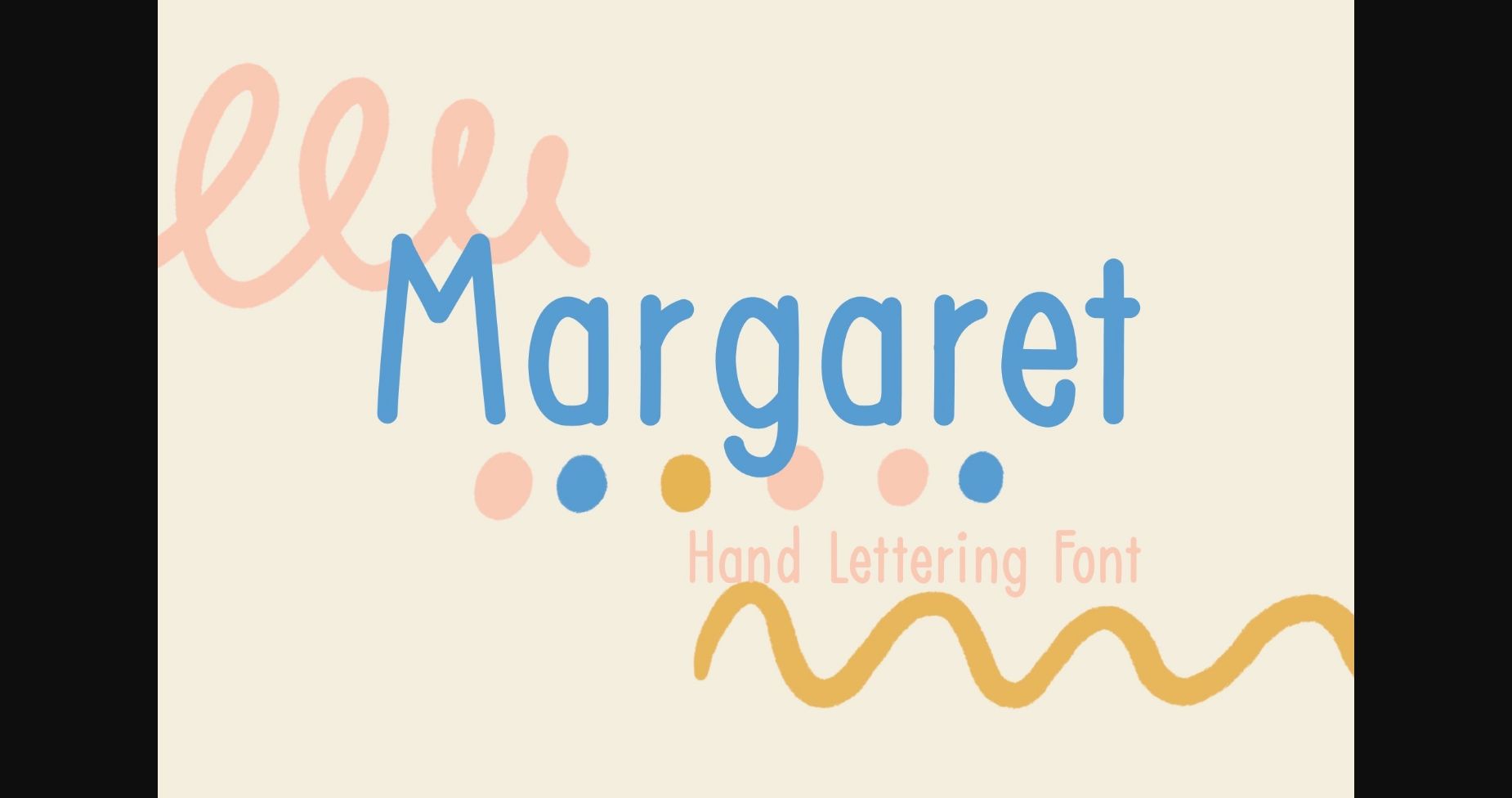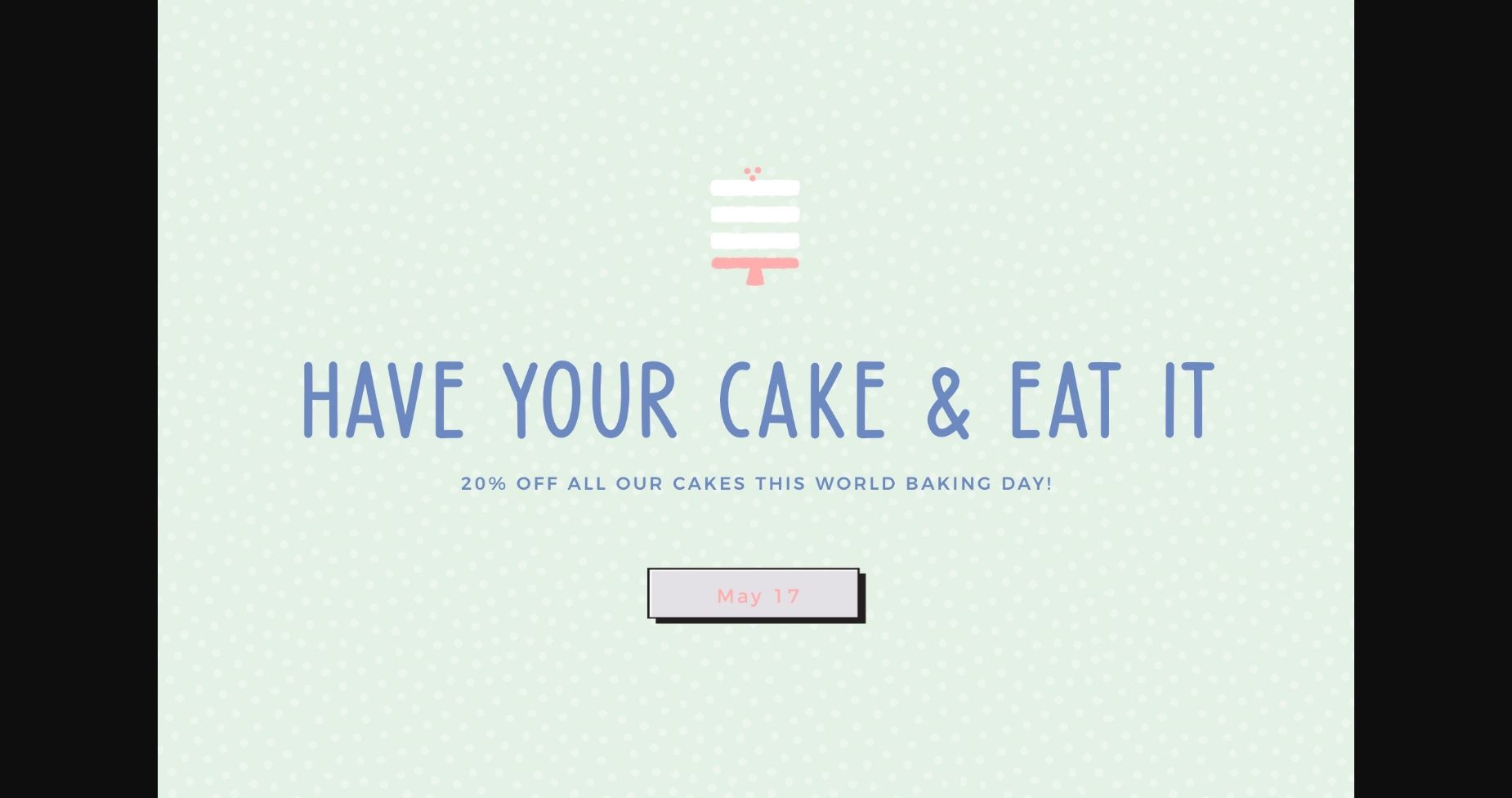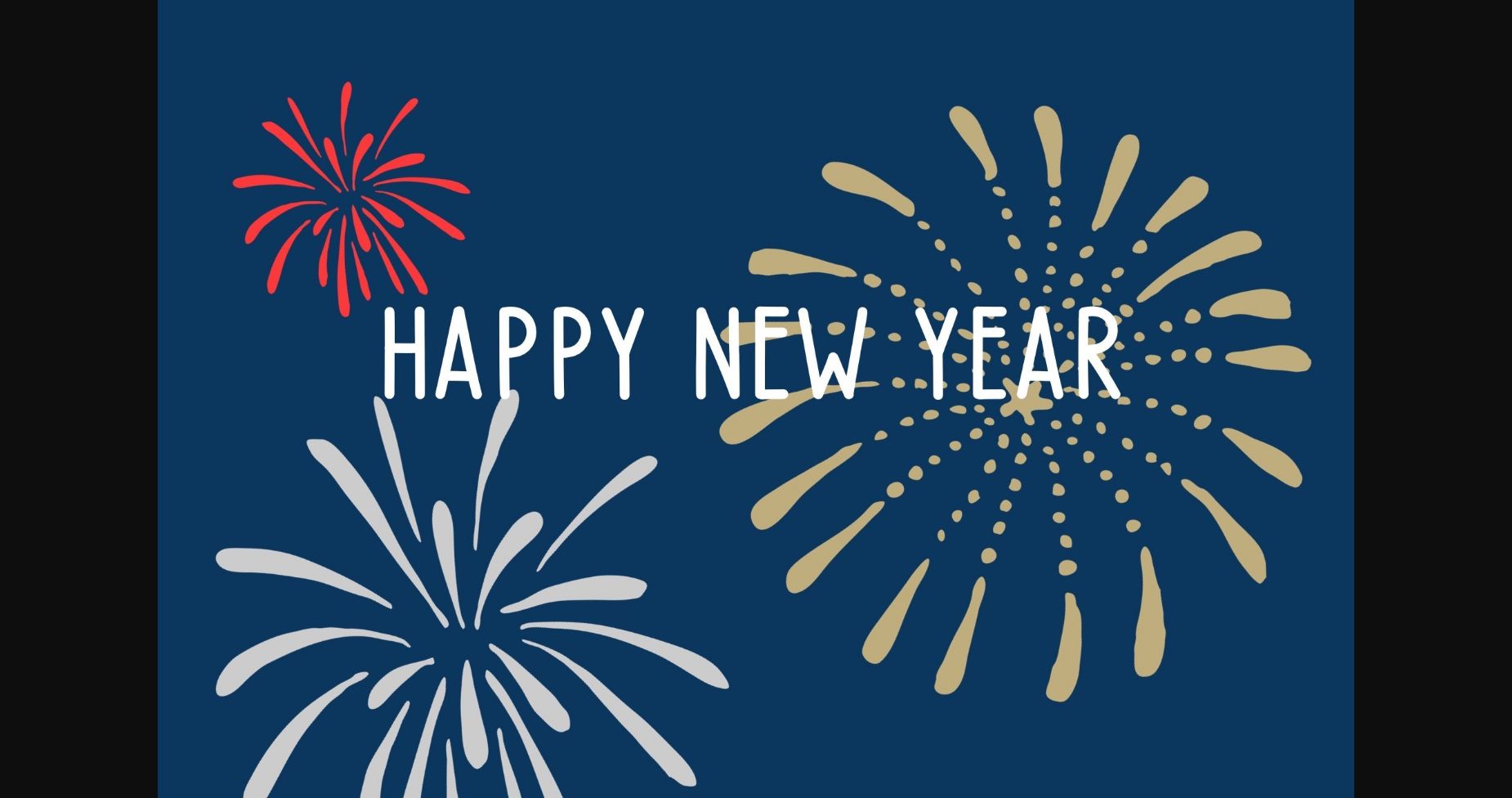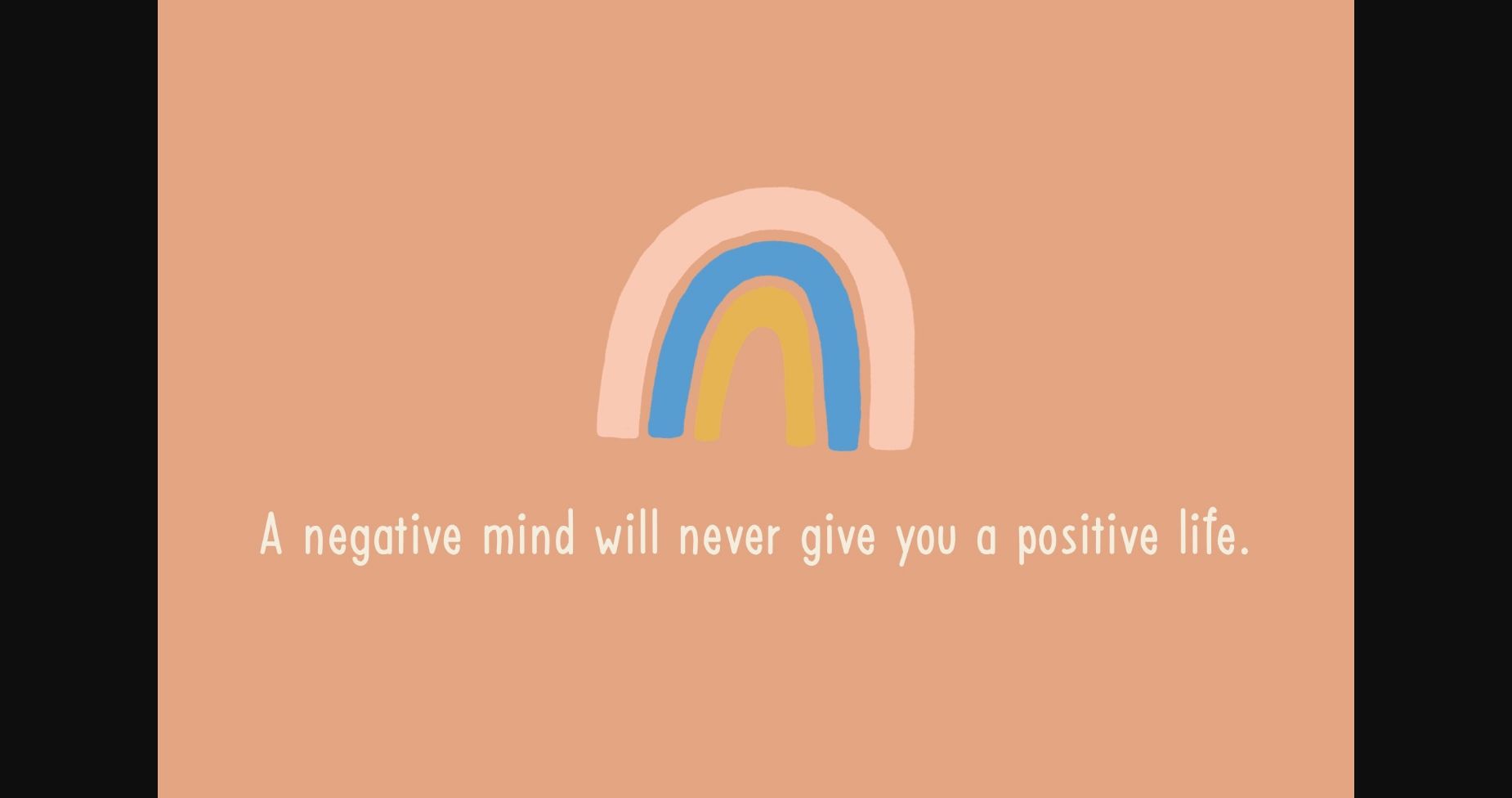
About Magaret Font
Margaret is a cute and hand-drawn sans serif font, perfect for projects that need stylish and modern typography.
Use the font for Cricut projects, design, logos, branding, decor, mugs, pantry labels, wedding invitations, stickers, business cards, greeting cards, posters, social media, planner prints, and more!